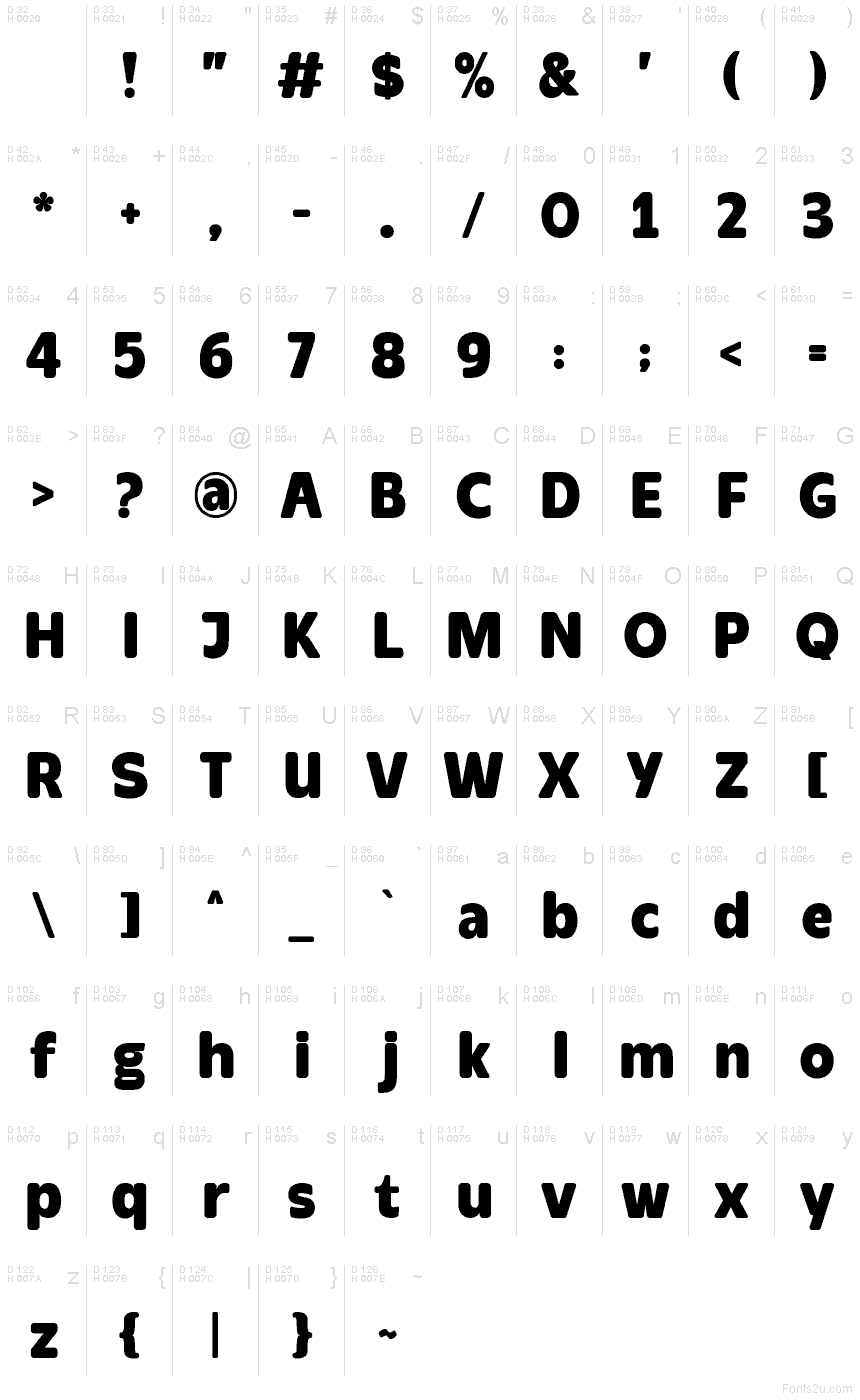
Cartenz Bold
Cartenz Bold font by Four Lines is a modern and elegant geometric sans serif typeface with a minimalistic style. Its bold appearance and contemporary feel give it an excellent aesthetic value that will show on any digital or print design. The square line and proportion of the characters also give it a playful vibe.